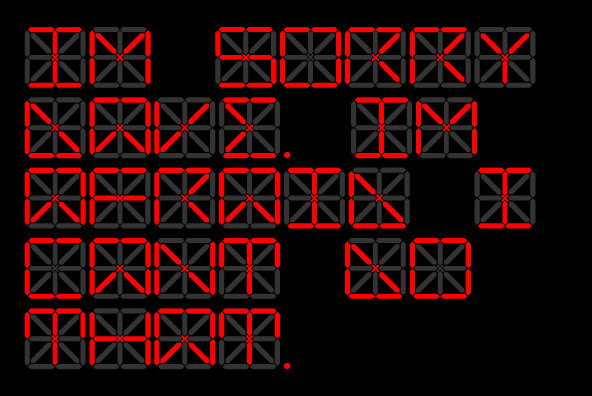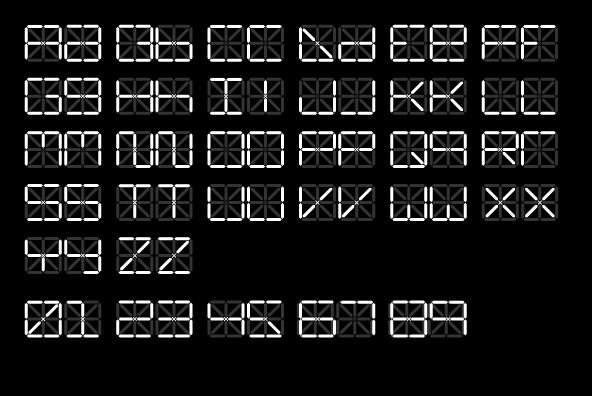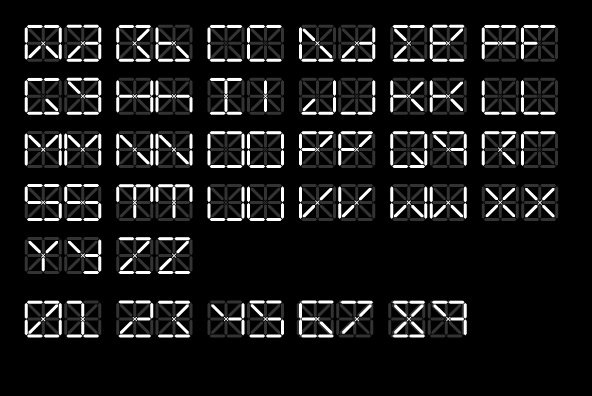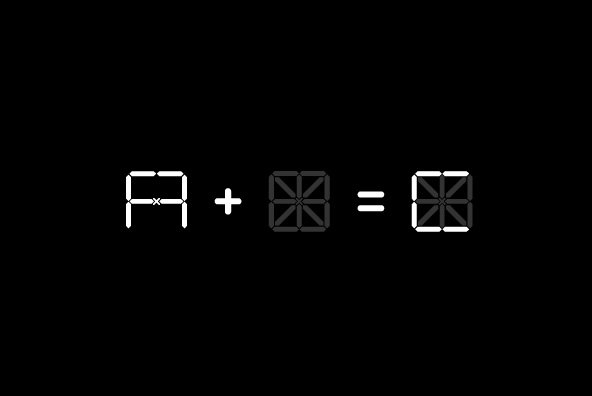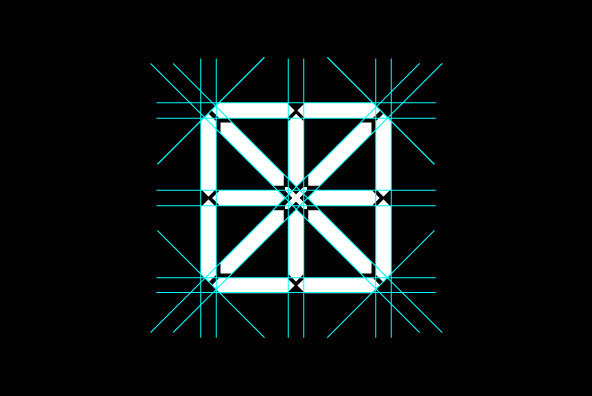
A super technical display typeface born of a desire to improve upon the mundane typography rendered via traditional liquid crystal displays.
A super technical display typeface born of a desire to improve upon the mundane typography rendered via traditional liquid crystal displays. Not for amateurs.